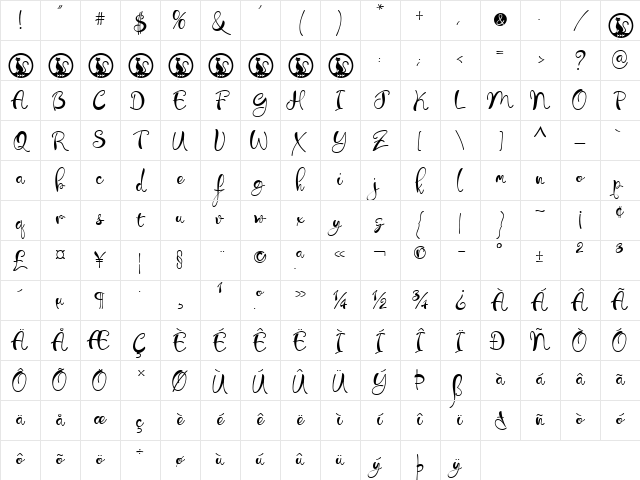
Complete Libertinas-co. ffp glyph index. Displaying only characters natively supported by Libertinas-co. ffp font.
Libertinas-co. is a composed and adaptable typeface that performs quietly and consistently across a wide range of design contexts.